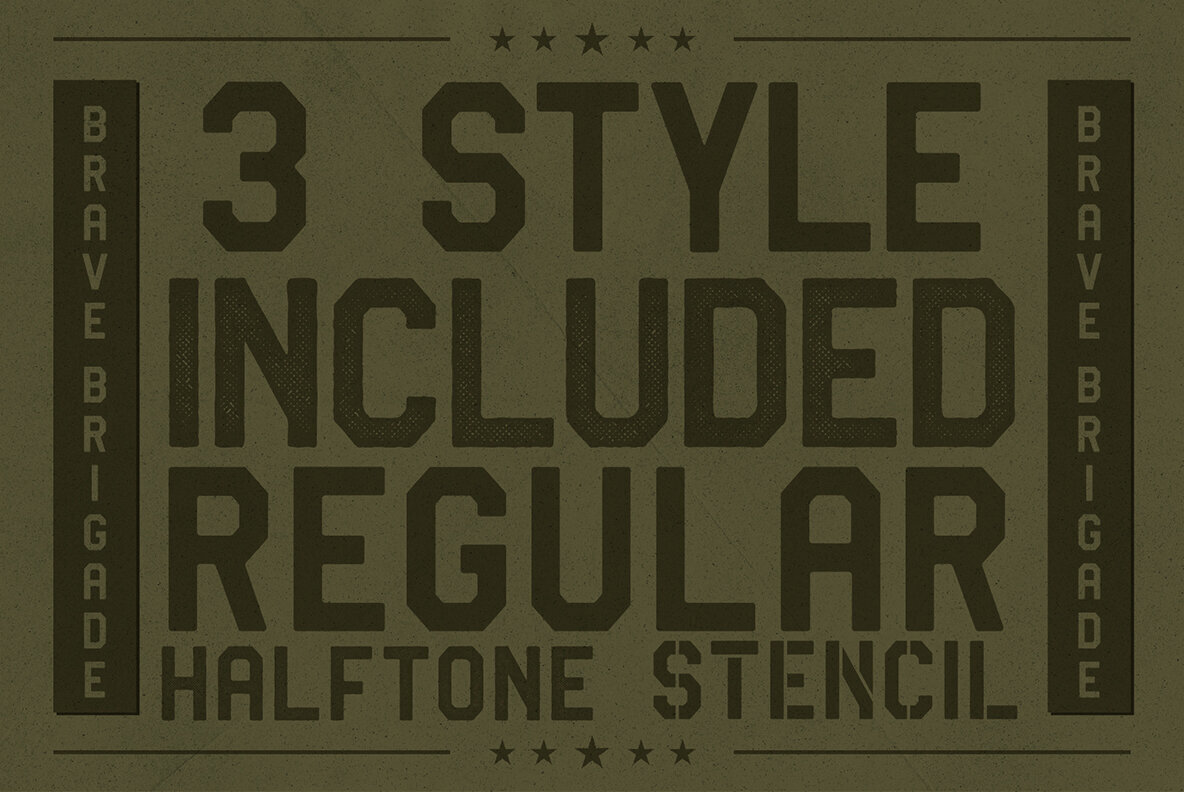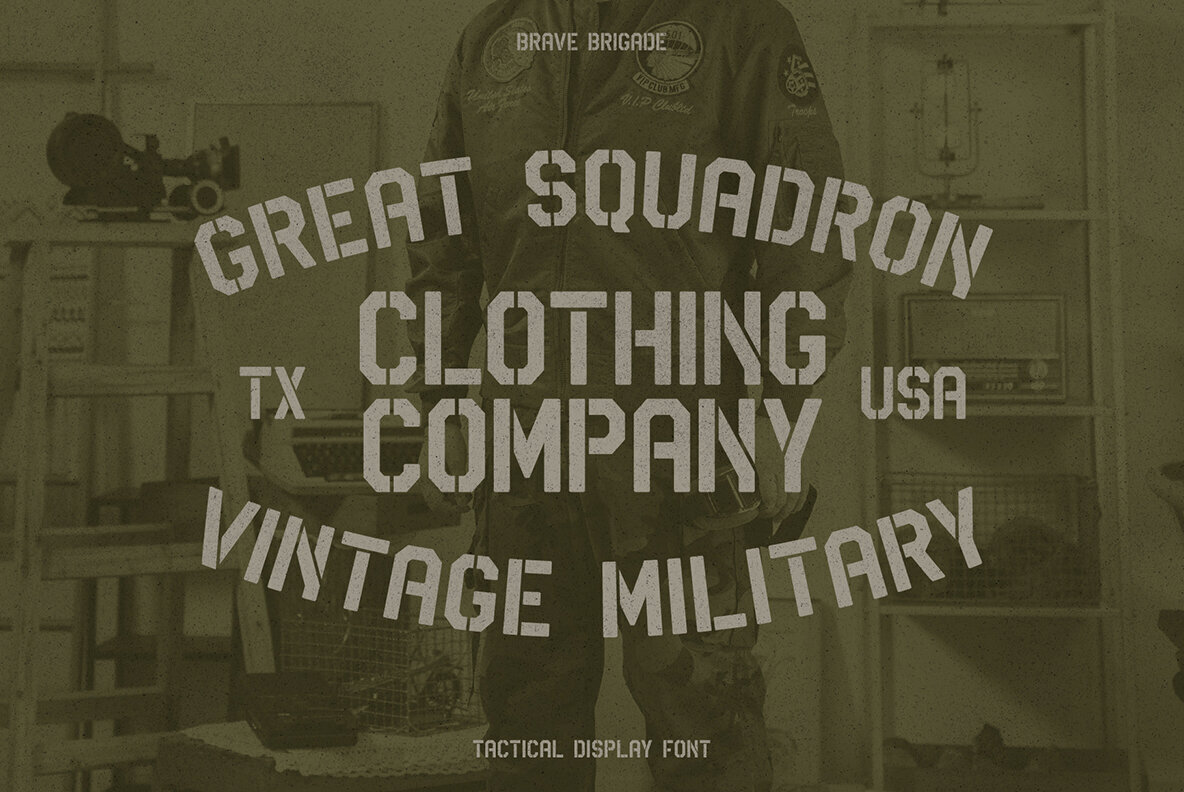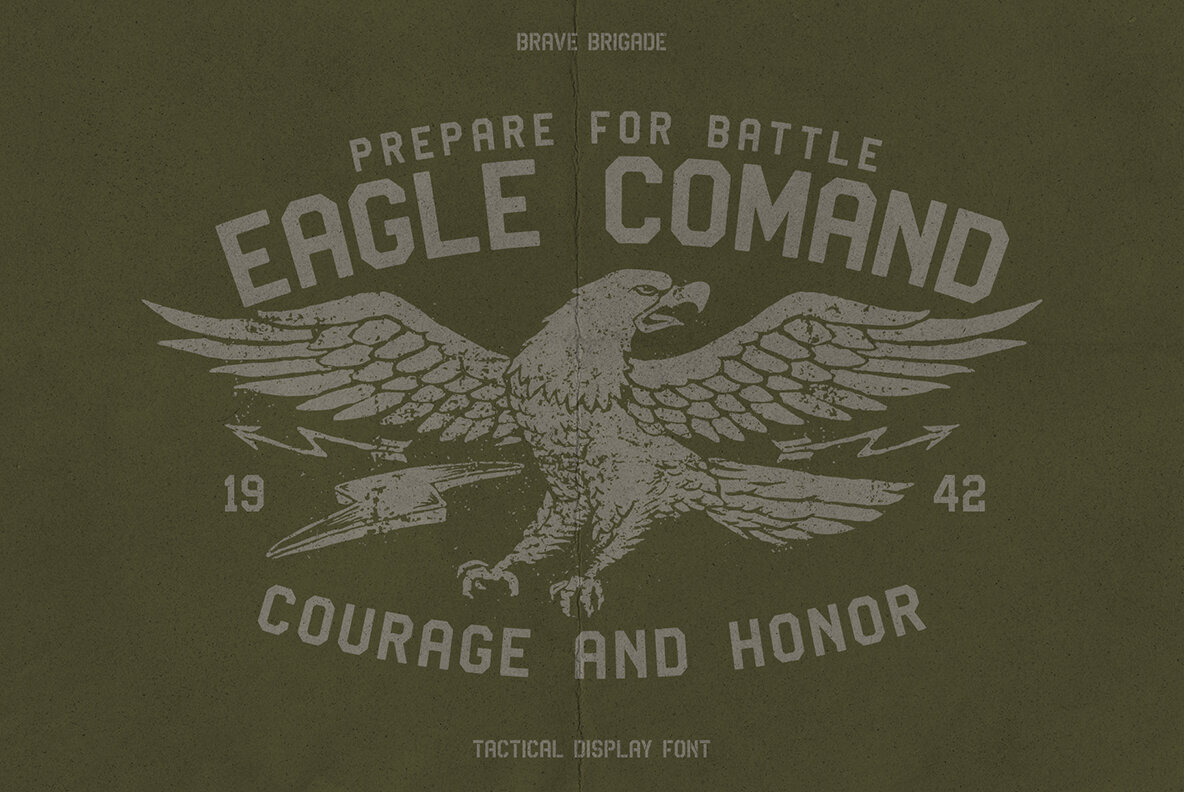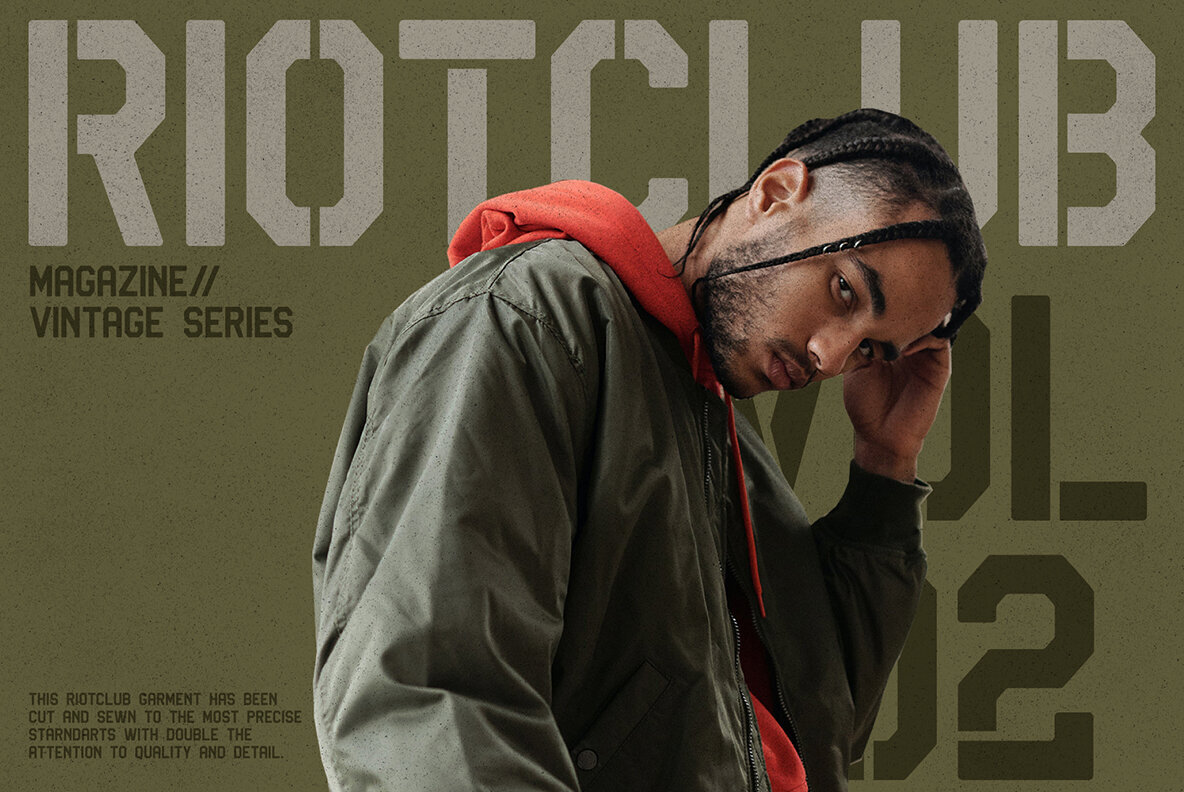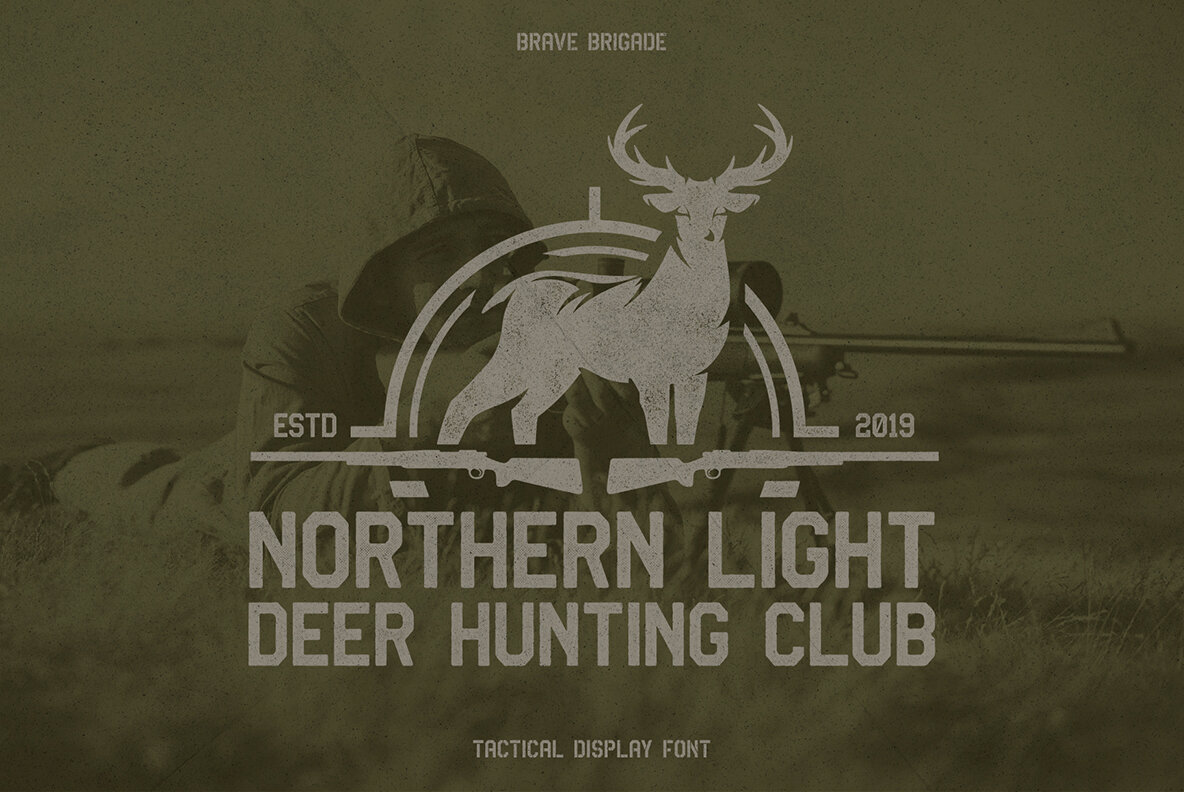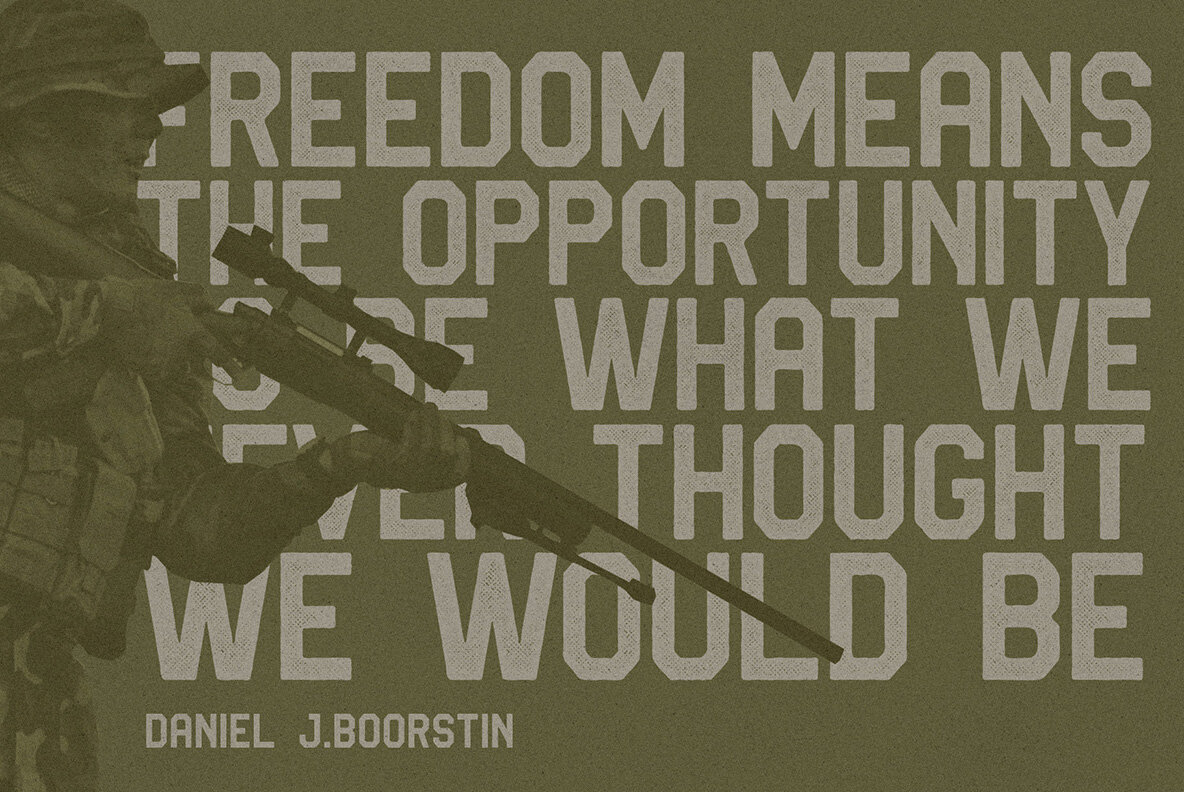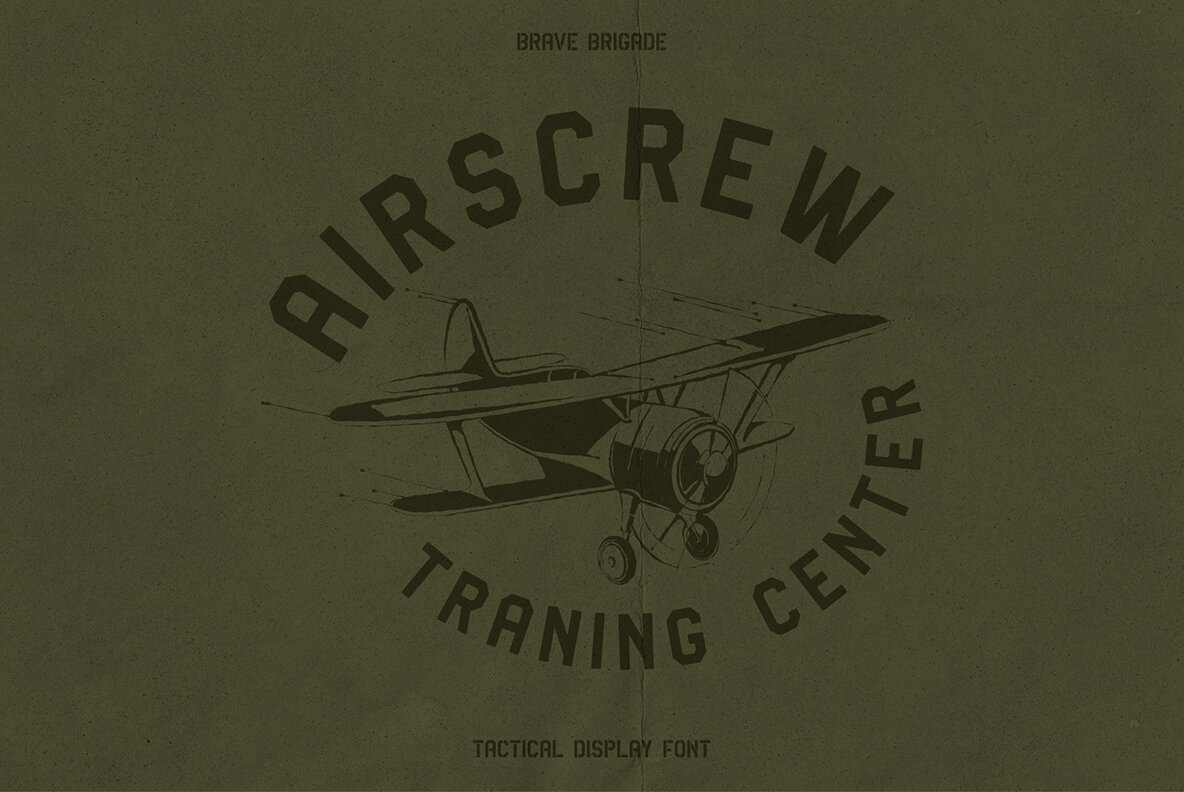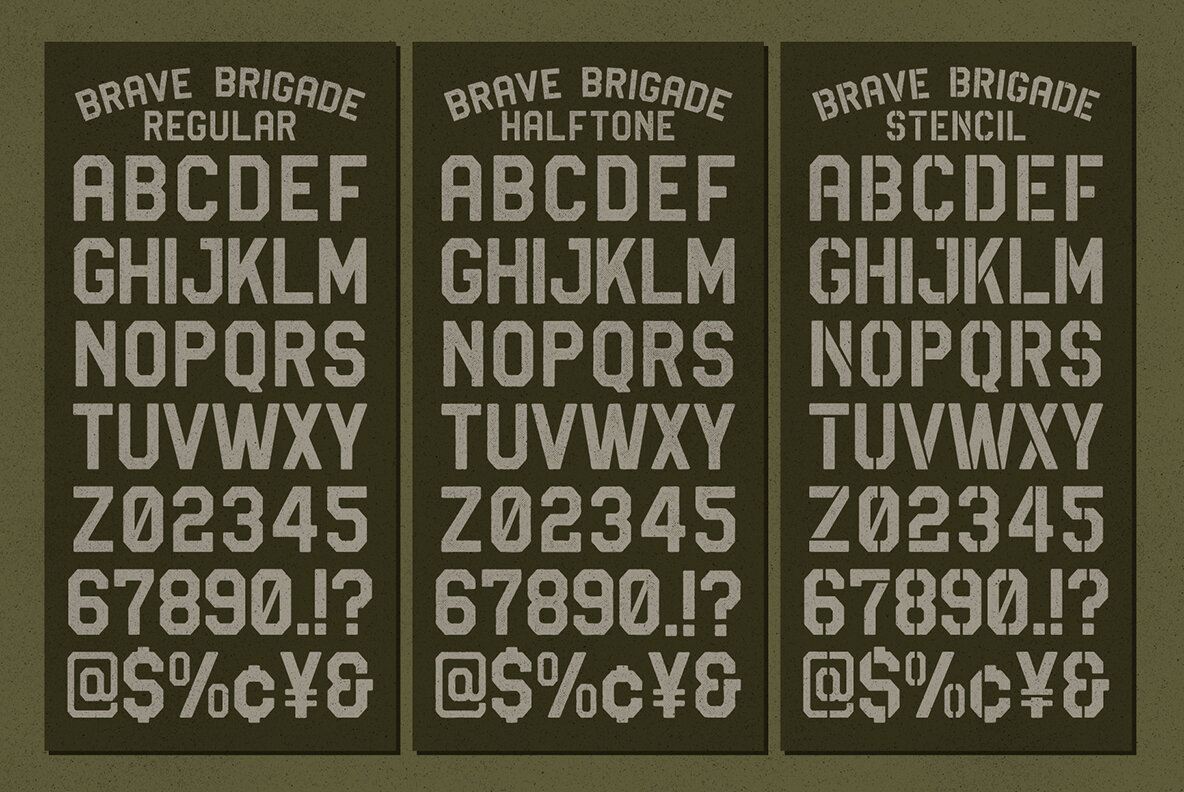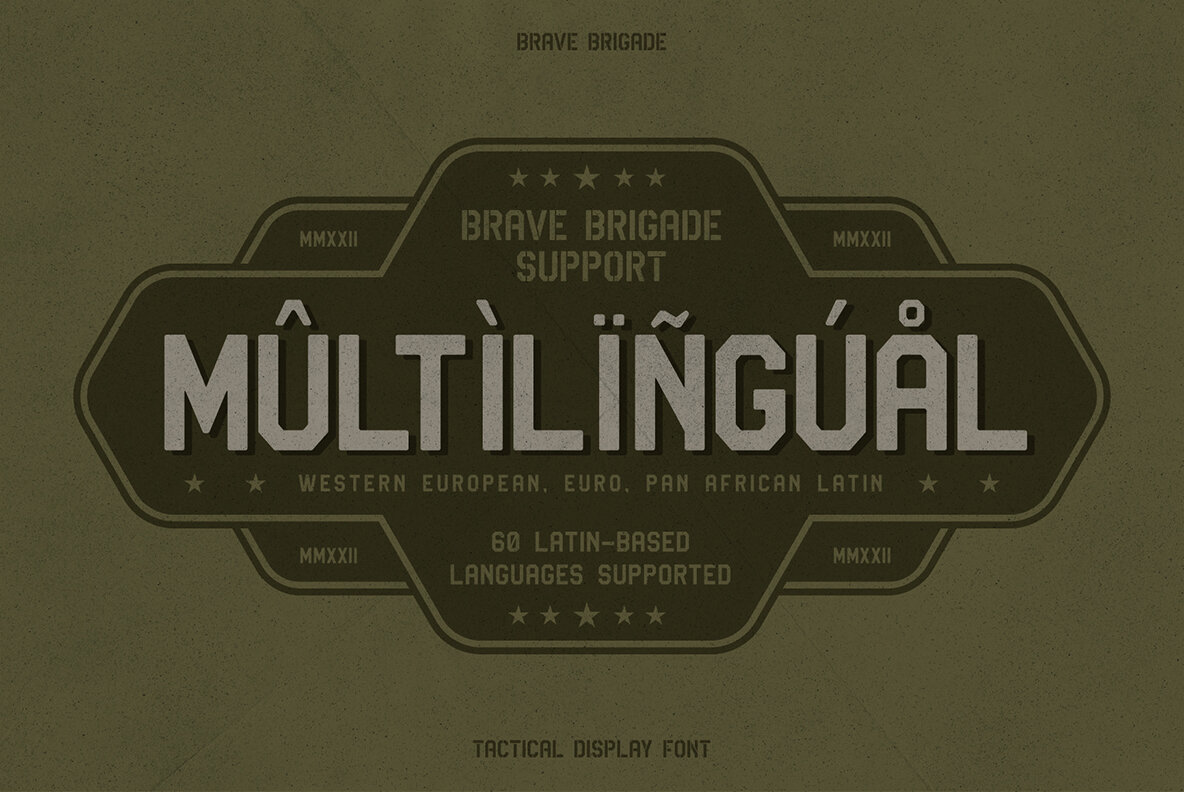
Brave Brigade Font
Military fonts are all the rage these days, but what about when you want to break away from traditional? The Brave Brigade font has three styles: regular and halftone (which appear similar) as well Military Stencil. This is perfect for branding projects because it has tons of uses including posters packaging etcetera!